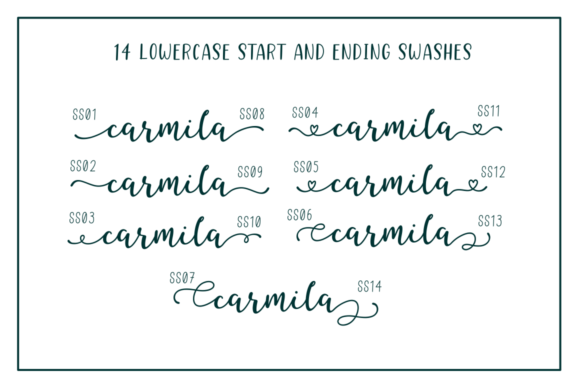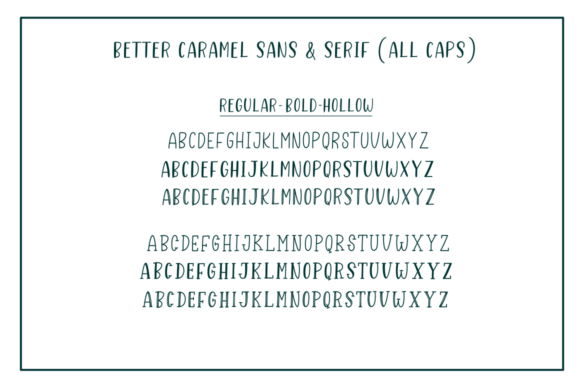
Better Caramel Trio Font
db-ku.com - Script & Handwritten -- The Better Caramel is a beautiful font trio. It comes with 7 styles which can be paired together perfectly! It gives you the opportunity to create unique designs, every time you use it.